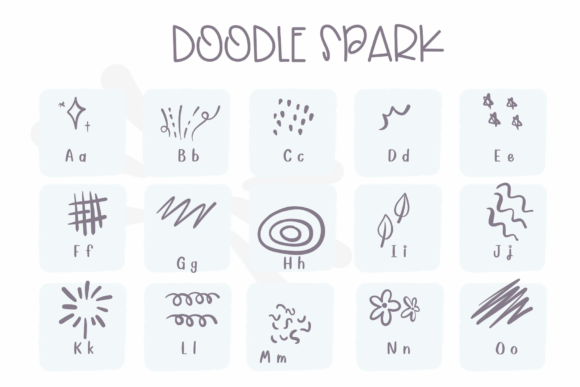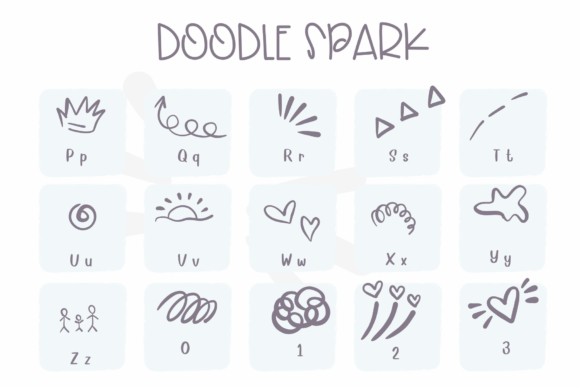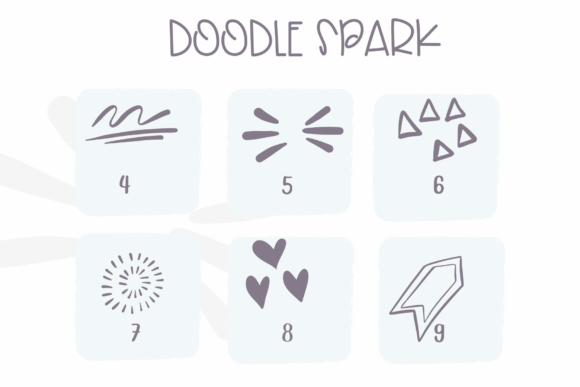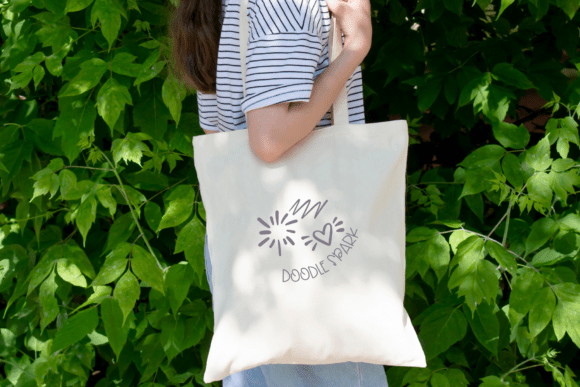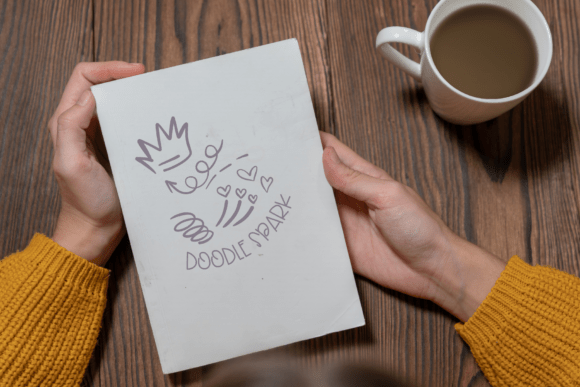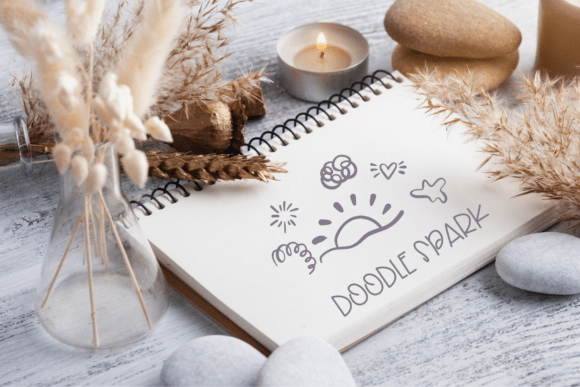
Unlocking Creativity with Doodle Spark Font
Have you ever been in the middle of a design project, and suddenly, it feels like something’s missing? You’re not alone! I recall working on a vibrant greeting card design for a friend’s birthday, but it just wasn’t coming together. The text was dull, and I needed something to inject life into it. That’s when I stumbled upon the Doodle Spark Dingbats Font. It was like a breath of fresh air! This playful, hand-drawn dingbat font is filled with energetic doodles: spark lines, swirls, arrows, hearts, flowers, stars, scribbles, and more. It instantly added the perfect touch of creativity and spontaneous energy to my design.
What Makes Doodle Spark Font Special?
Doodle Spark Dingbats Font is perfect for a wide range of creative projects, including planners, scrapbooks, stickers, greeting cards, T-shirts, tote bags, mugs, and digital projects. Its versatility and charm make it an excellent addition to any designer’s toolkit. Whether you’re working on school projects, journaling, kids’ crafts, boho graphics, or any artwork that needs a bit of extra sparkle, this font is sure to impress.
- ✨ Playful and energetic vibe: Doodle Spark Font brings a fun, carefree spirit to any design.
- ✅ Extensive doodle collection: With a wide variety of doodles, you’re bound to find the perfect element to enhance your project.
- 💫 Easy to use: This font is user-friendly, making it simple to incorporate into your designs.
- 🎨 Versatile: Suitable for a range of projects, from digital designs to print materials.
While Doodle Spark Font is fantastic, there are a few minor considerations to keep in mind:
- ⚠️ Glyphs can be a bit tricky: Some users might find navigating the glyphs panel challenging, especially if they’re new to using dingbat fonts.
- 🤔 Not suitable for body text: Due to its decorative nature, Doodle Spark Font is best used for headings, titles, or accents rather than lengthy text.
The Story Behind Doodle Spark Font
Imagine a designer who loves doodling in their notebook during meetings. They start collecting these doodles, thinking, “What if I turned these into a font?” And so, Doodle Spark Font was born. The designer aimed to create a tool that would allow others to add a touch of spontaneity and creativity to their designs. With Doodle Spark Font, you get a collection of doodles that can transform any project into a vibrant piece of art.
Q: What type of projects is Doodle Spark Font best suited for?
A: Doodle Spark Font is perfect for planners, scrapbooks, stickers, greeting cards, T-shirts, tote bags, mugs, and digital projects. It’s great for any design that needs a playful, energetic touch.